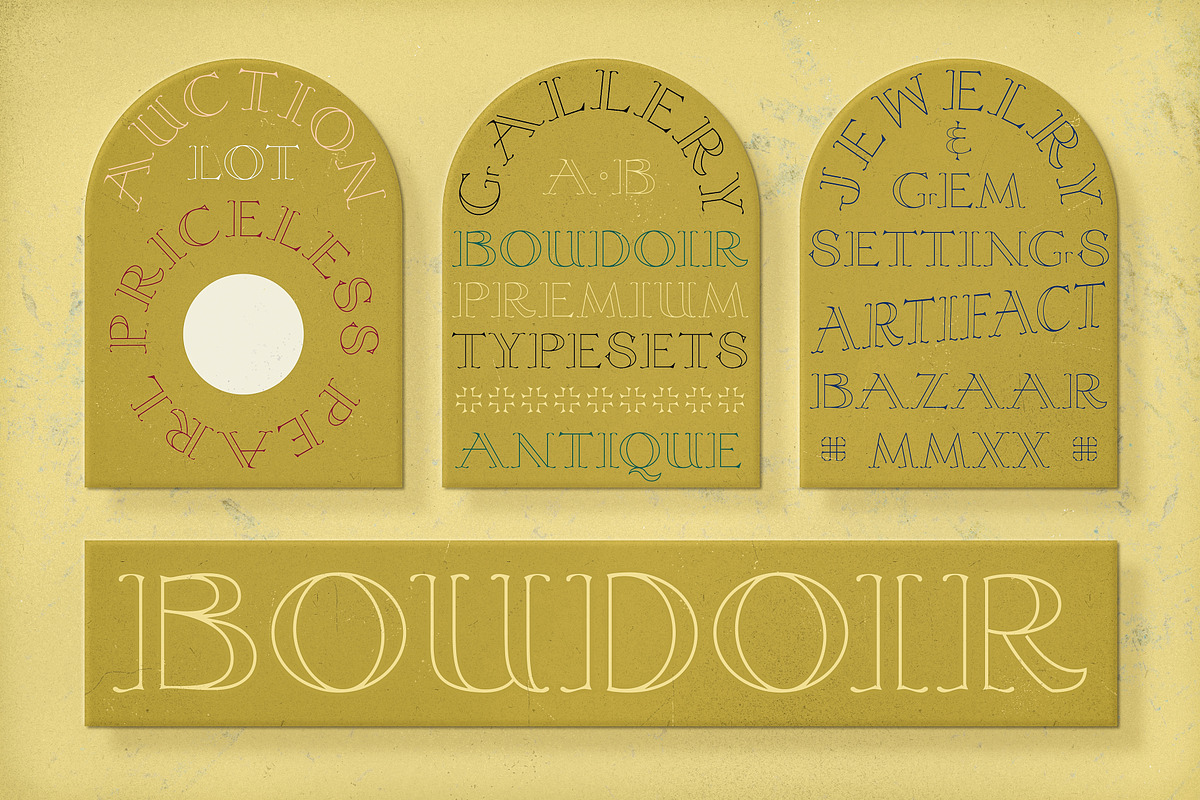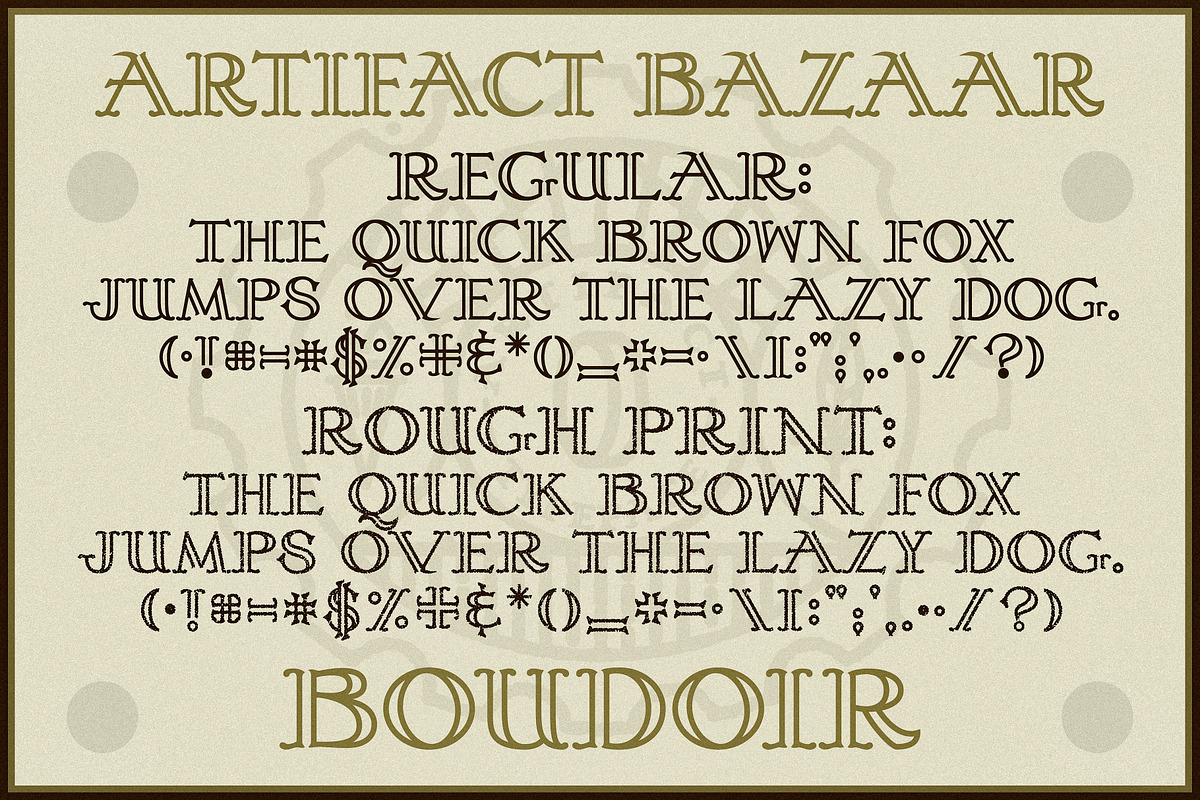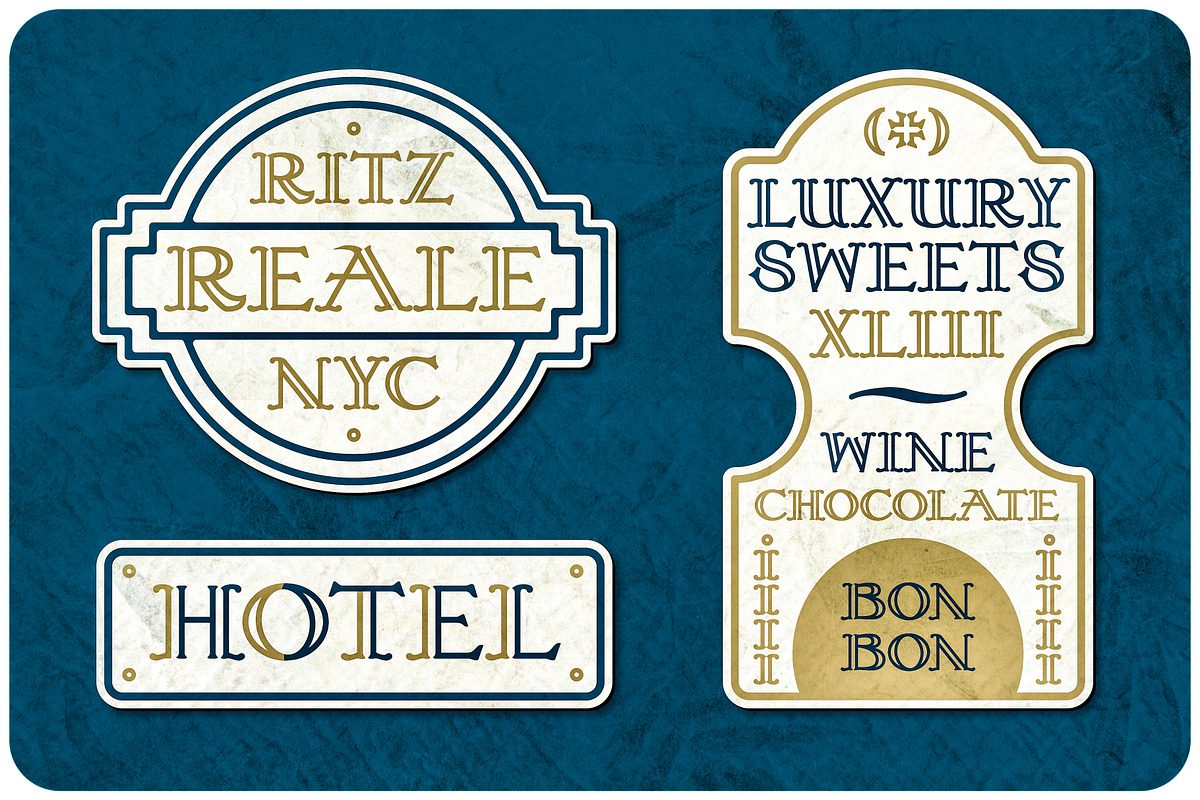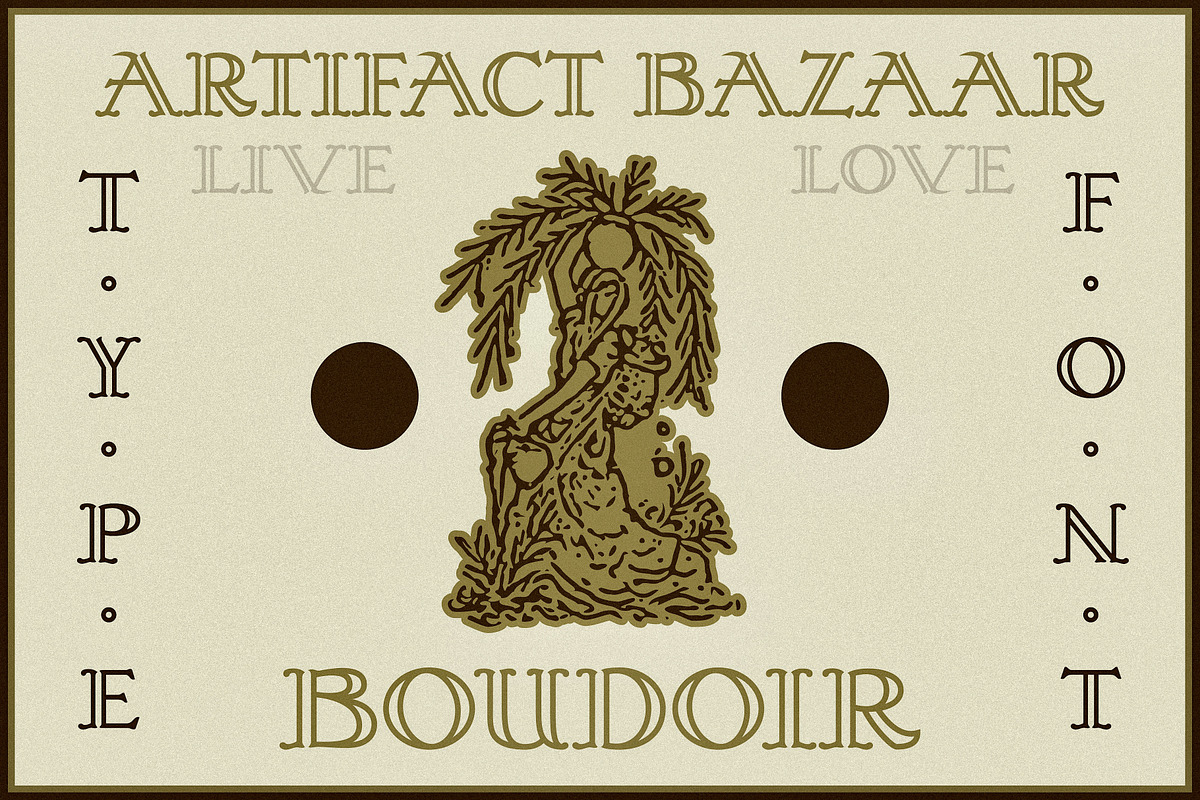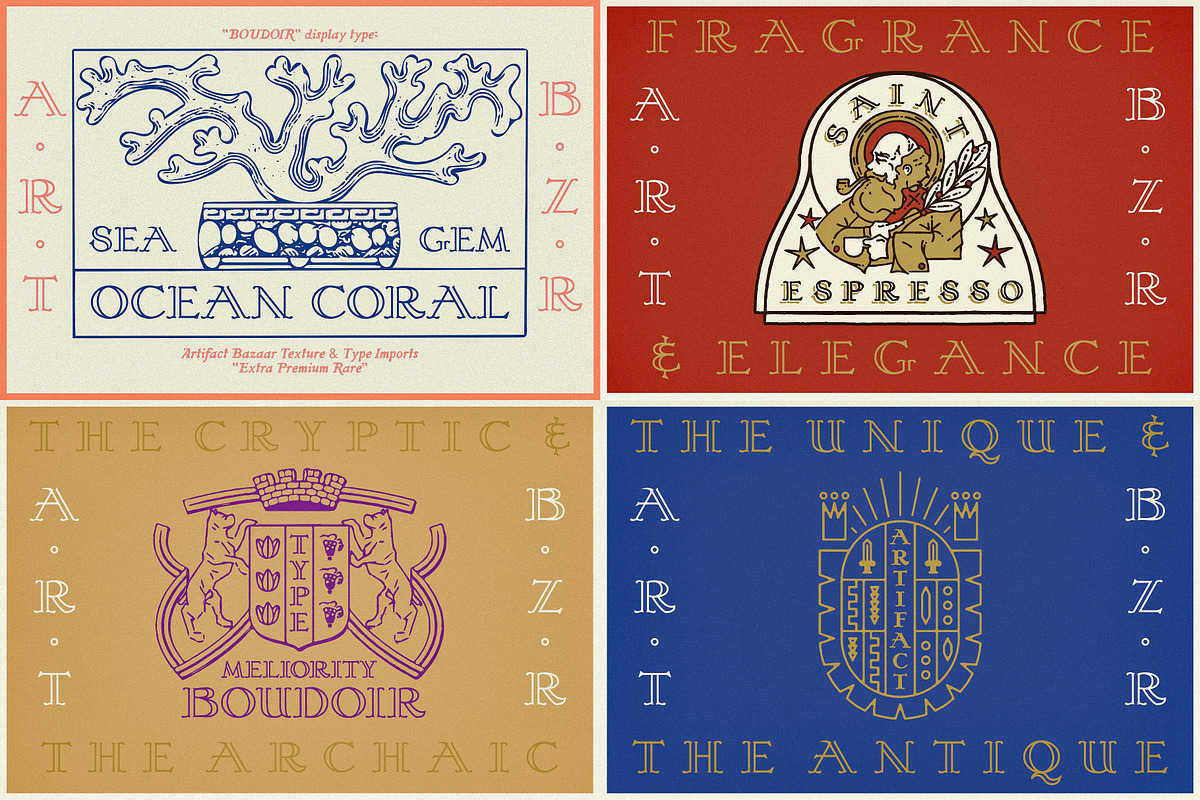
Boudoir | Elegant Logotype
Namesake of the socialite salons of yesteryear, BOUDOIR is a high-fashion, elegant logo and display typeface built with a rare and classically balanced semi stencil line system. You might catch a glimmer of it at a Parisian boutique, a luxury hotel, an artisan chocolatier's, a marble columned museum, a theatre or opera house, in one of the gold-foil menus on the Orient Express.
A Season 1 Artifact Bazaar font
Artisan Made
Punctuation and Special Characters included
In lieu of Arabic numbers, it's recommended to use Roman Numerals to tie in the aesthetic.
2 Styles
Print Texture